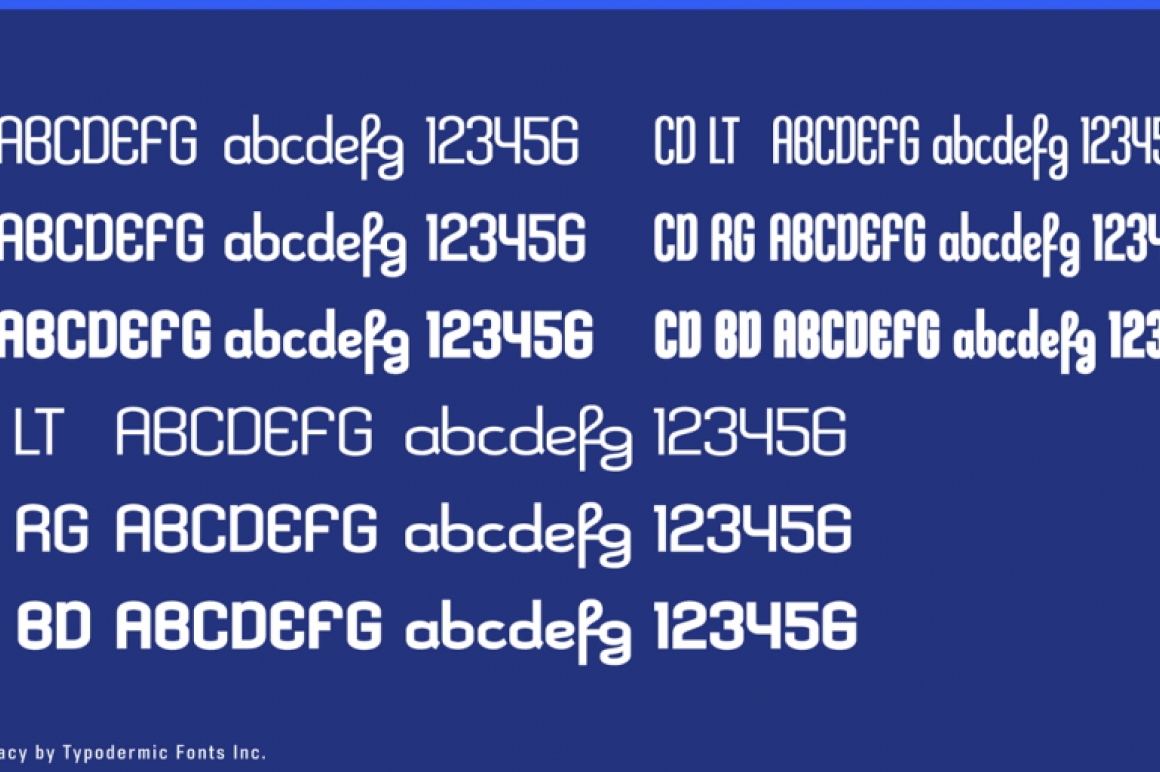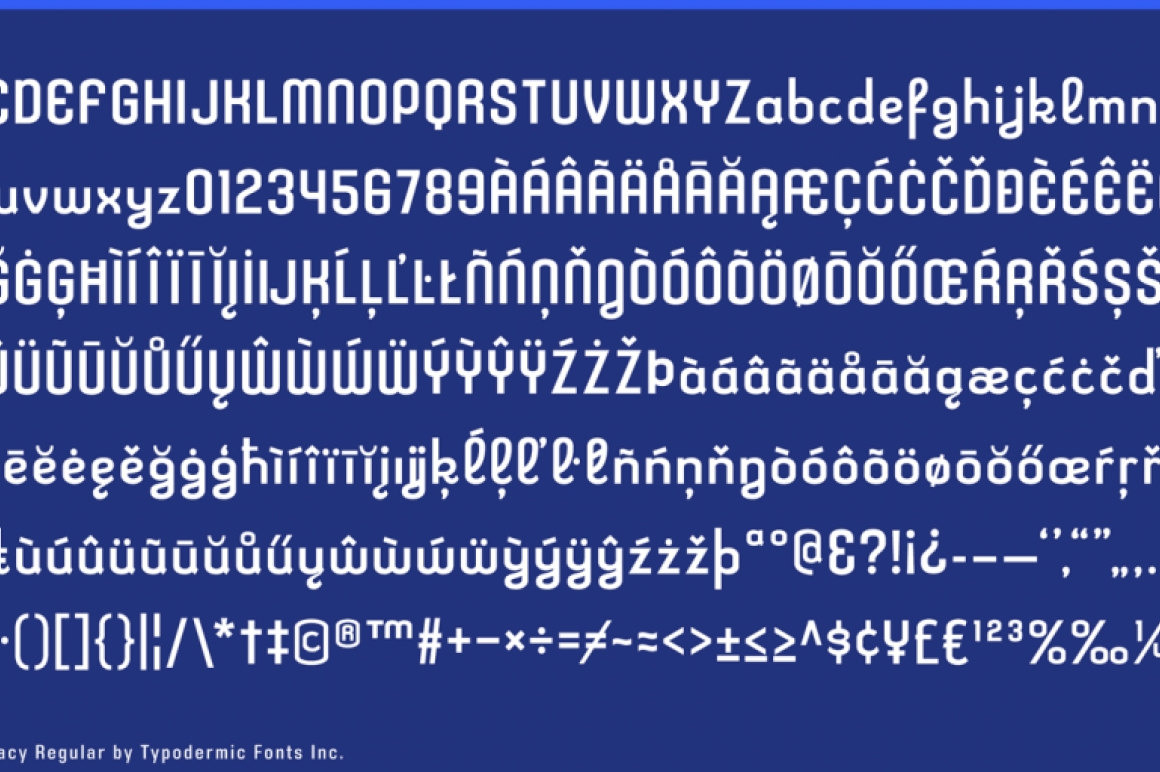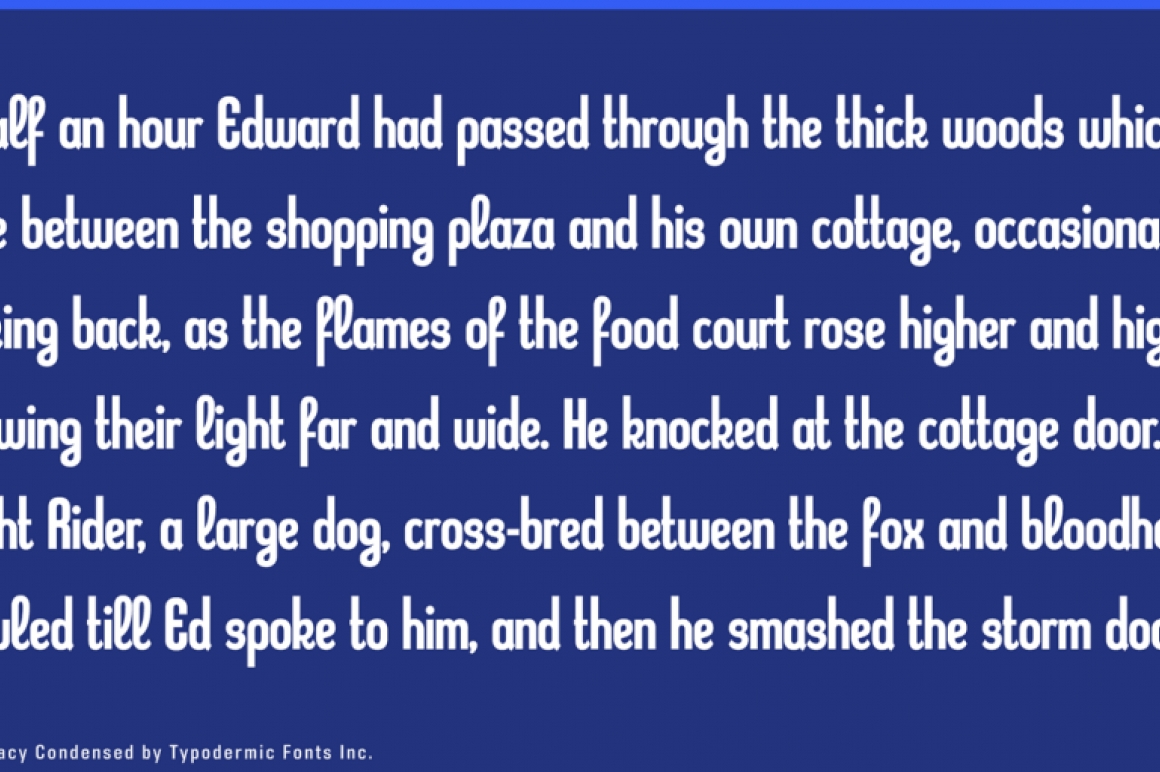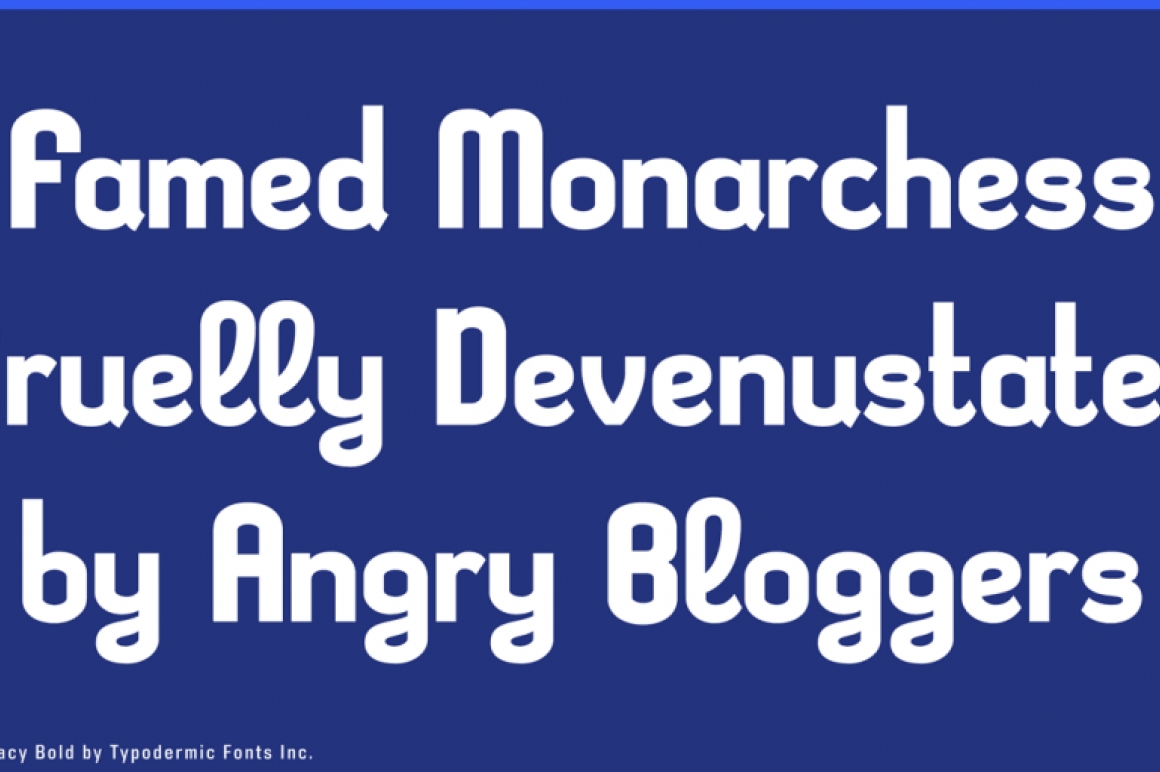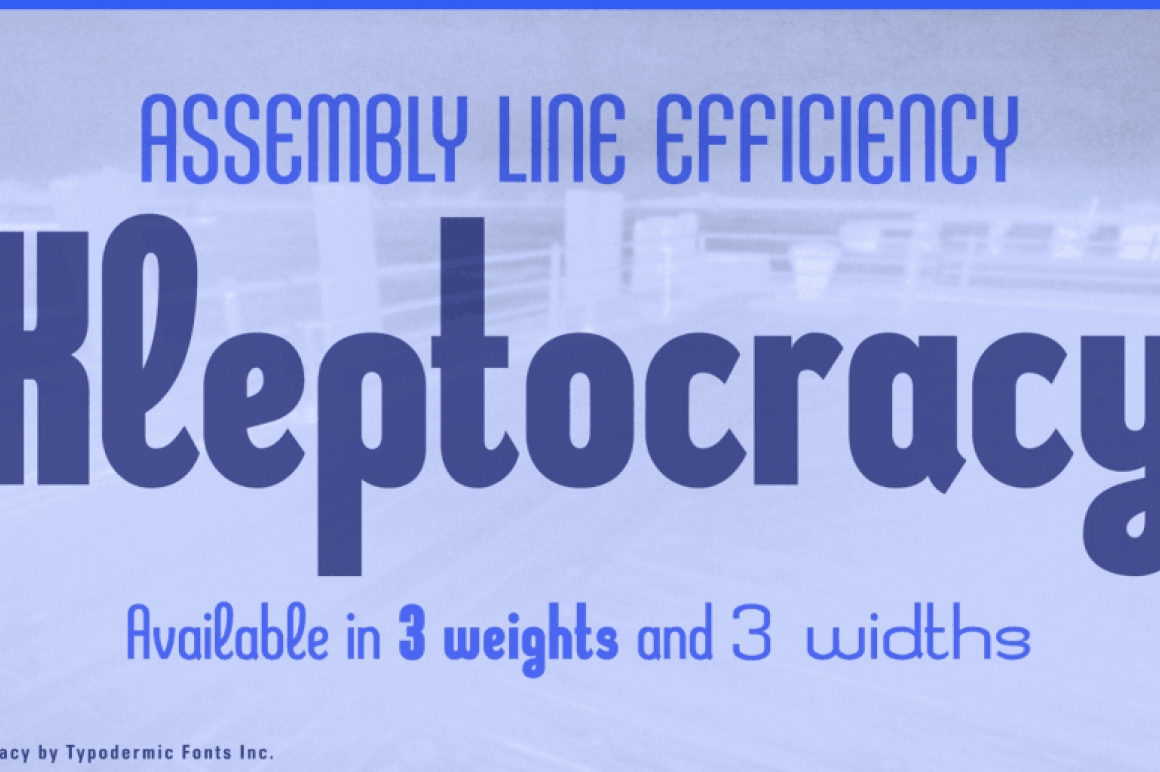
Kleptocracy Titling
Assembly line efficiency tempered with softly rounded curves makes Kleptocracy purr where other factory-made fonts rattle and buzz. The cursive elements weld the warmth of soft curves to the utilitarian lines to create playful elements like g, y and l keeping it from appearing stark and cold. For a (not free) version with lowercase, check the link.